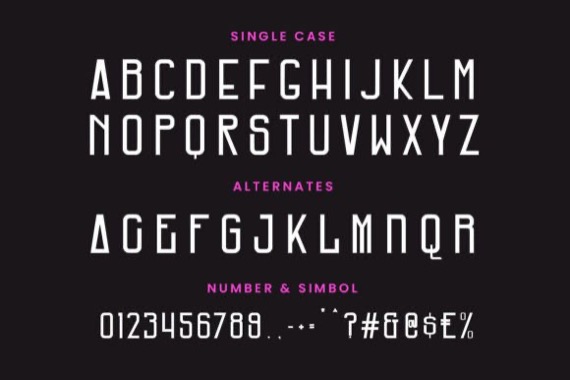
Kagami is an elegant and dazzling sans serif display font that was created and shared by Maulana Creative. With bold condensed stroke and fun character. To give you an extra creative work, Kagami font support multilingual more than 100+ language. This font is good for logo design, Social media, Movie Titles, Books Titles, a short text even a long text letter and good for your secondary text font with signature or script typeface. Make a stunning work with Kagami font. This font is PUA encoded which means you can access all of the amazing glyphs and ligatures with ease!
Kagami Snas Serif Font